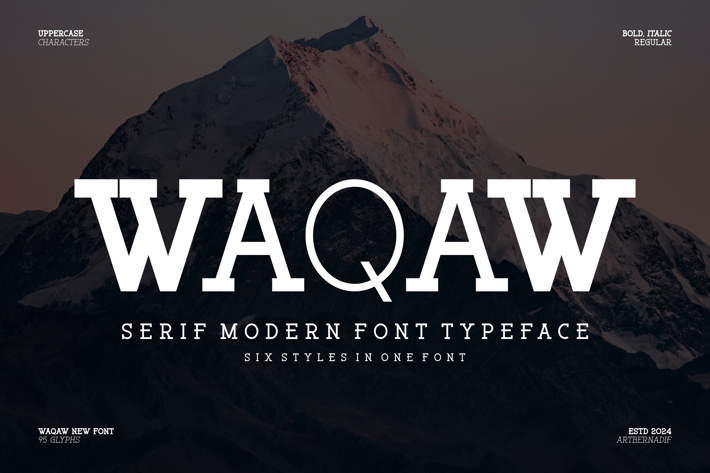
Waqaw - Serif Modern Font Typeface
Introducing our new product Waqaw Font - Serif Modern Font Typeface
Waqaw Font- Modern Font is a bold,regular and light Font Typeface. The font is suitable for any branding project like logo, t-shirt printing, esport, and many more.
outstanding in a wide range of contexts.
Waqaw Uppercase
Waqaw Bold,Regular and Light (Italic)